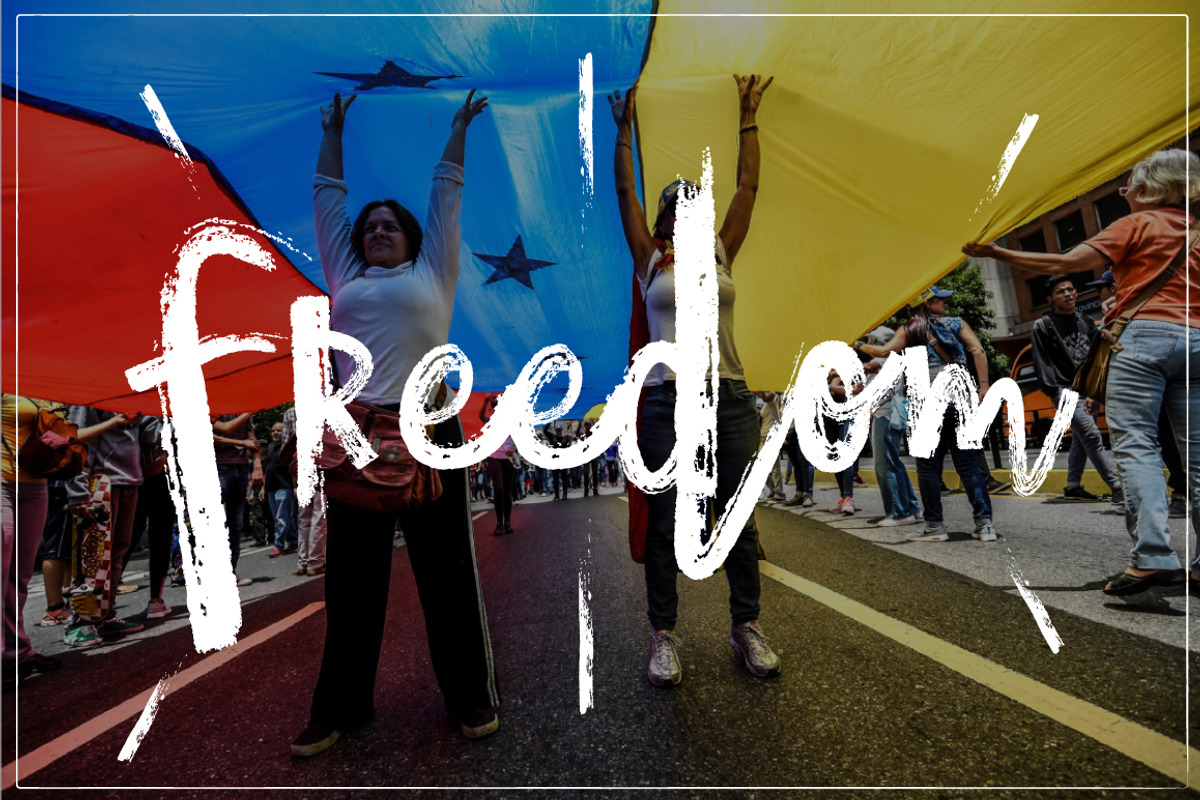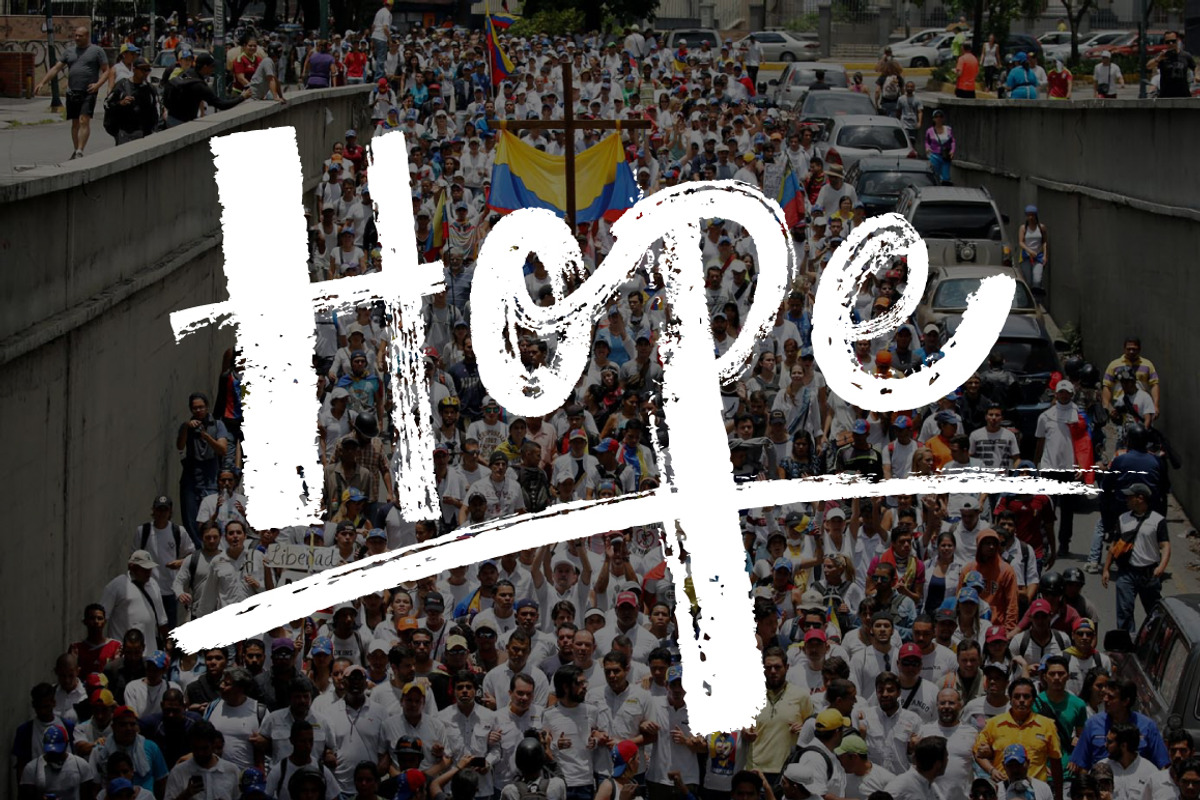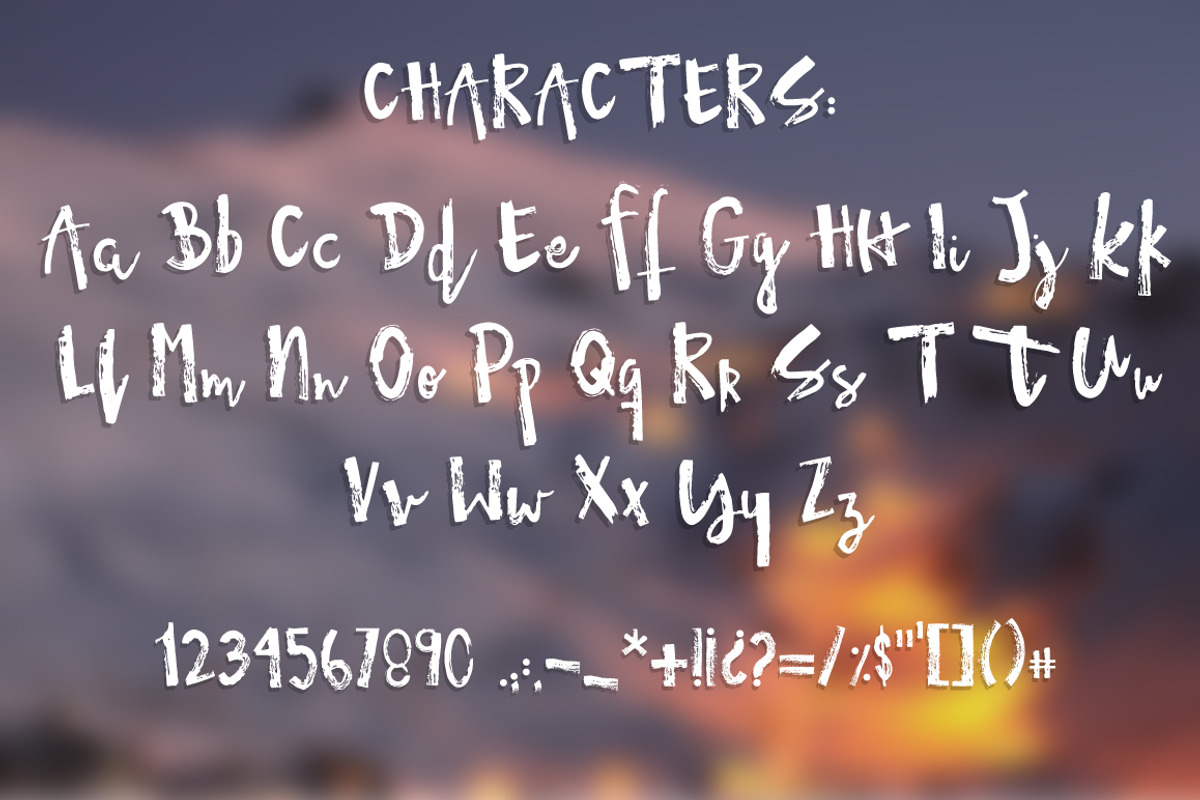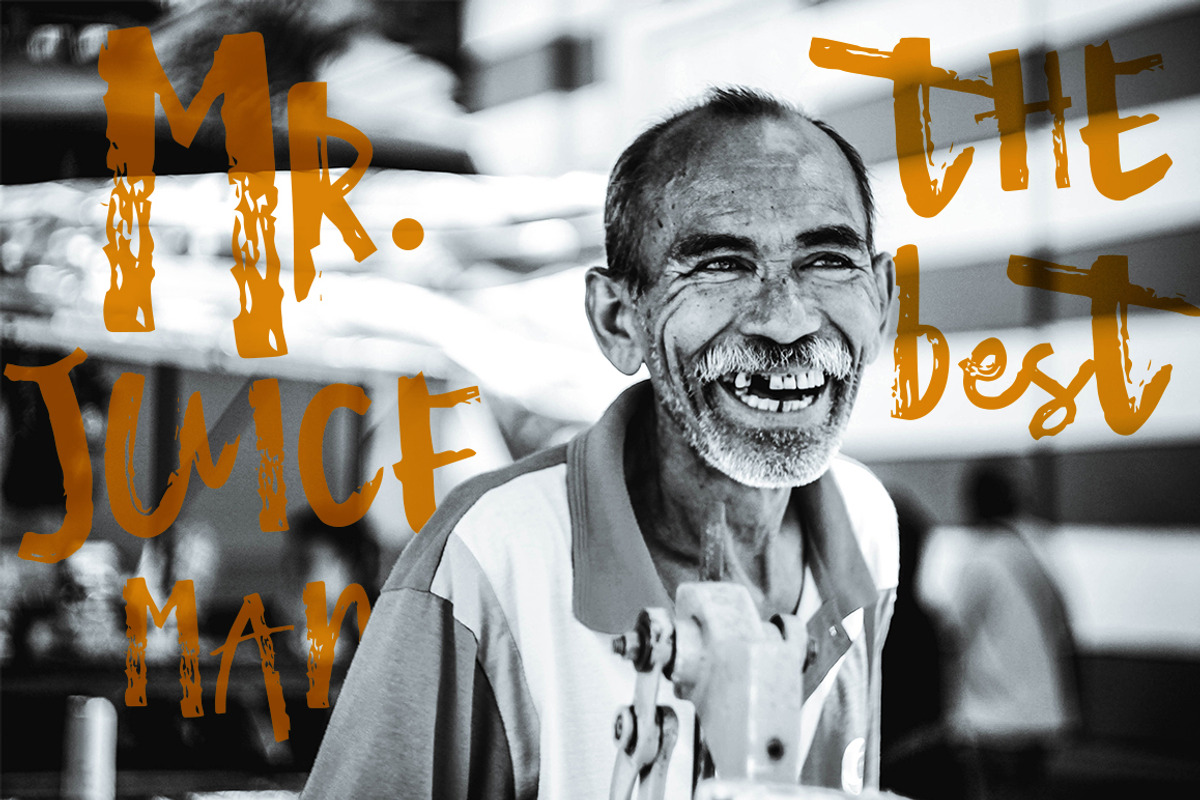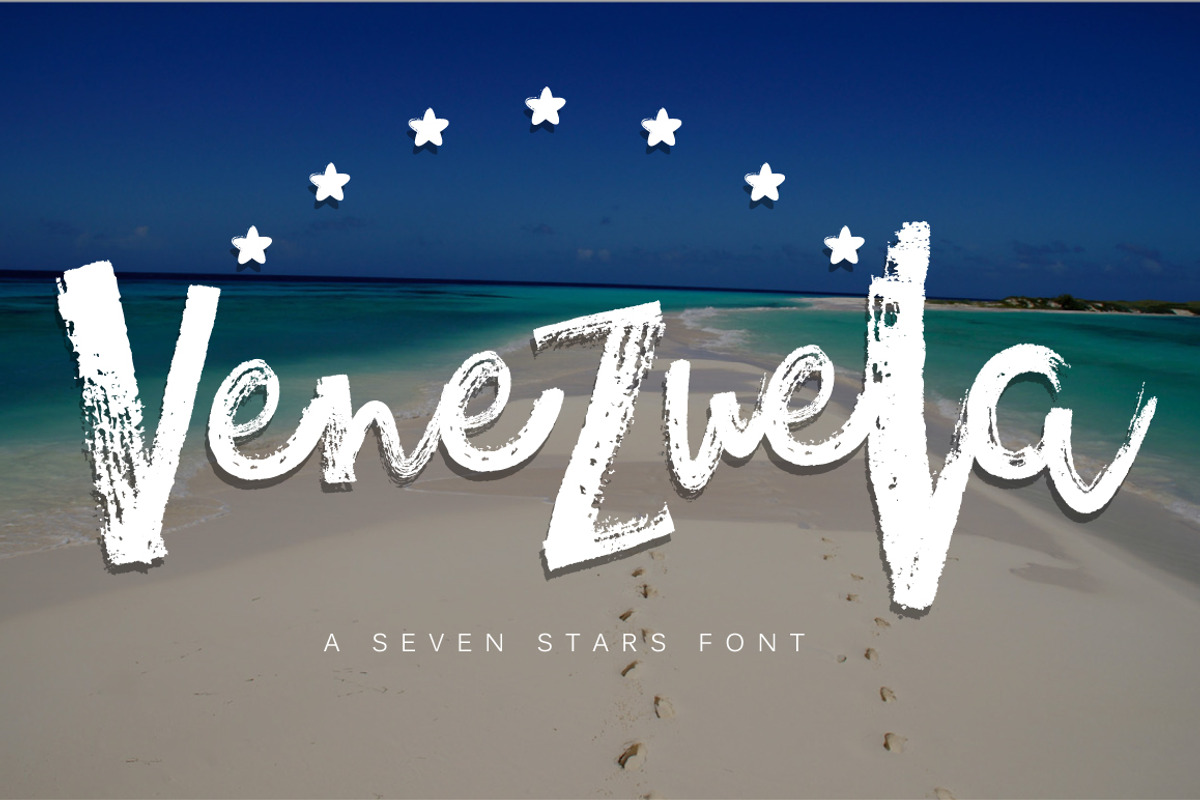
Venezuela - Dry brush font
Venezuela - Dry brush font by Andrea De Oliveira is a font selected for branding, posters, packaging, typography.
Why Venezuela - Dry brush font is worth a look
Venezuela - Dry brush font by Andrea De Oliveira fits naturally into Branding, posters, packaging, typography.